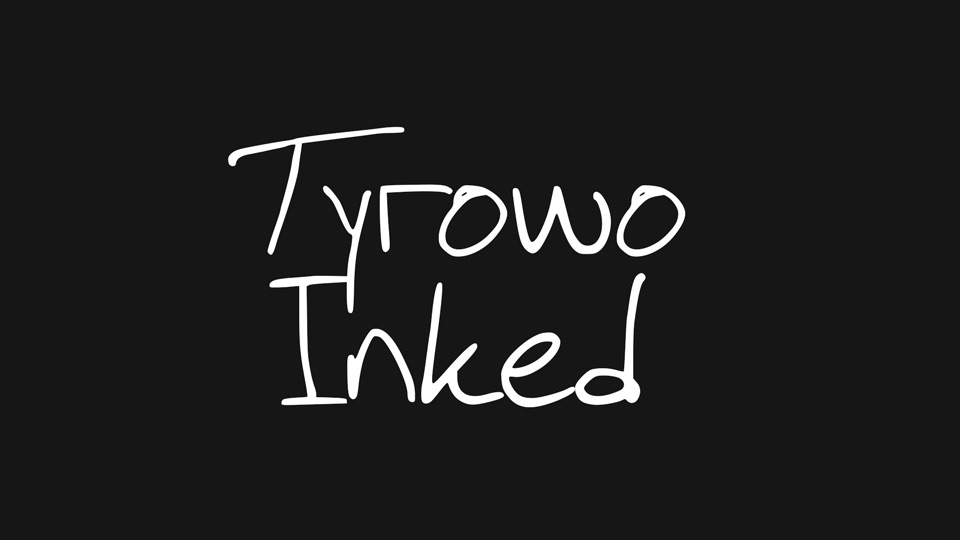
Download Tyrowo Inked font, a casual typeface based on the original handwriting. Tyrowo Inked font is perfect for notes, quotes, social media and any project that requires a personal touch.
Designer: Tyler Crews